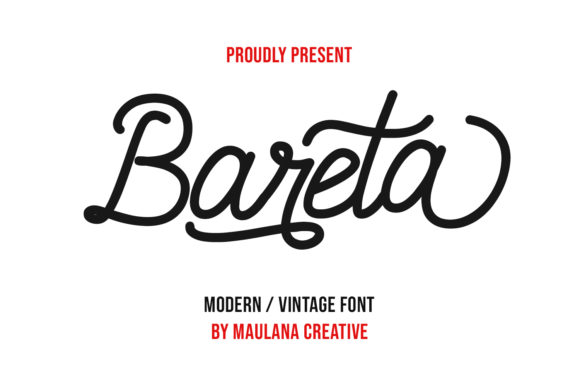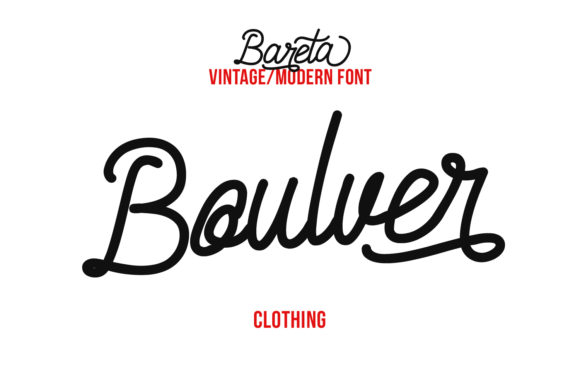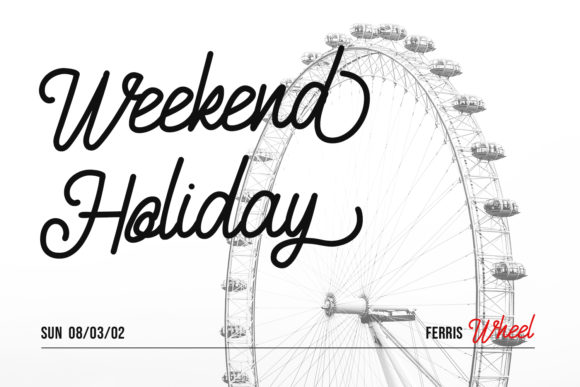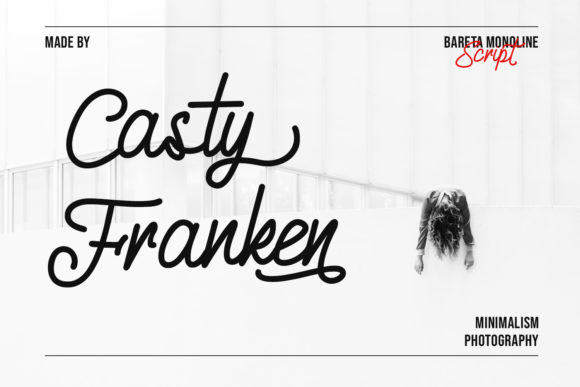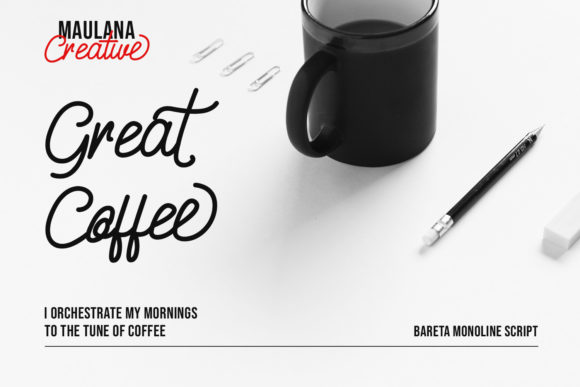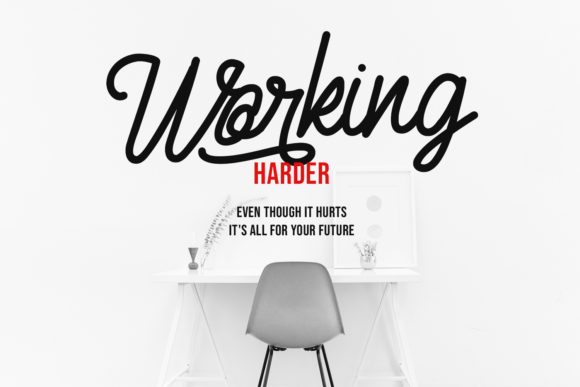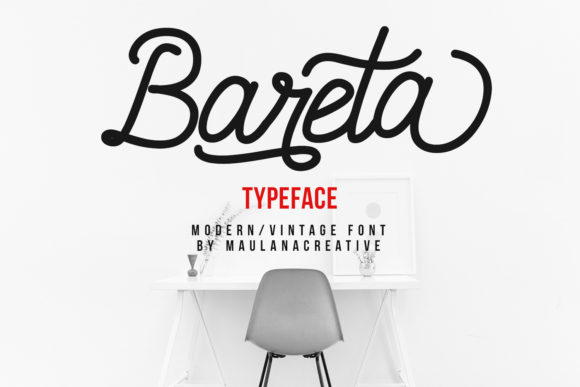
Bareta Font: Elevate Your Designs with a Modern Handwritten Touch
In the world of typography, fonts play a crucial role in conveying the tone and personality of a design. For designers and crafters looking to add a personal touch to their projects, Bareta Font is an excellent choice. This modern handwritten font is versatile, elegant, and perfect for a wide range of applications.
What is Bareta Font?
Bareta is a carefully crafted handwritten font that exudes a sense of sophistication and modernity. Its unique character makes it an ideal choice for designers seeking to create stunning visual content. Whether you’re working on a logo, typography quotes, or packaging design, Bareta Font is sure to impress.
Key Features of Bareta Font
- Modern Handwritten Style: Bareta Font boasts a fresh and contemporary handwritten look that will elevate your designs.
- Highly Versatile: Use Bareta Font for a variety of projects, including signatures, stationery, logos, magazine or book covers, website headers, clothing, branding, and packaging design.
- Elegant and Sophisticated: The font’s elegant curves and lines make it perfect for designs that require a touch of sophistication.
Use Cases for Bareta Font
Bareta Font is an incredibly versatile font that can be used in a multitude of design projects. Here are some ideas to get you started:
- Signature Design: Add a personal touch to your signature with Bareta Font.
- Stationery and Letterheads: Create beautiful stationery and letterheads that make a lasting impression.
- Logo Design: Use Bareta Font to create a unique and memorable logo for your brand.
- Typography Quotes: Add a touch of elegance to your typography quotes with Bareta Font.
- Magazine or Book Cover: Create stunning magazine or book covers that grab attention.
- Website Header: Elevate your website’s header with Bareta Font.
- Clothing and Apparel: Use Bareta Font to create stylish and eye-catching clothing and apparel designs.
- Branding and Packaging: Add a personal touch to your branding and packaging designs with Bareta Font.
Why Choose Bareta Font?
With so many fonts available, why choose Bareta Font? Here are a few reasons:
- Unique and Modern: Bareta Font offers a fresh and modern take on handwritten typography.
- Elegant and Sophisticated: The font’s elegant curves and lines make it perfect for designs that require a touch of sophistication.
- Highly Versatile: Use Bareta Font for a wide range of design projects.
Tips for Using Bareta Font
To get the most out of Bareta Font, here are a few tips:
- Experiment with Sizes and Colors: Play around with different sizes and colors to find the perfect combination for your design.
- Pair with Other Fonts: Pair Bareta Font with other fonts to create a unique and visually appealing design.
- Use for Headings and Titles: Use Bareta Font for headings and titles to add a touch of elegance to your design.
Bareta Font is a modern handwritten font that offers a unique and elegant solution for designers and crafters. With its highly versatile nature and sophisticated look, Bareta Font is perfect for a wide range of design projects. Whether you’re working on a logo, typography quotes, or packaging design, Bareta Font is sure to elevate your designs and leave a lasting impression.